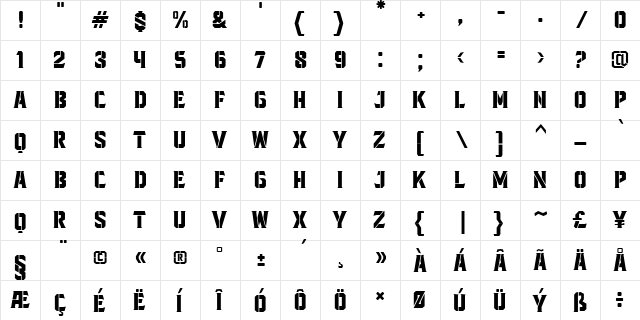
Blacktroops Stencil Regular
Design Context for Blacktroops Stencil Typeface
Blacktroops Stencil borrows the utilitarian aesthetic of stencil lettering, with its characteristic cutaways and no-frills construction lending an industrial edge.
A strong choice for packaging that needs edge, warehouse aesthetics, and rough-and-ready visual identities.
Pro Tip: Use Blacktroops Stencil at large sizes on packaging, posters, or apparel where the stencil cutaways read clearly. Avoid small sizes where those gaps become visual noise.